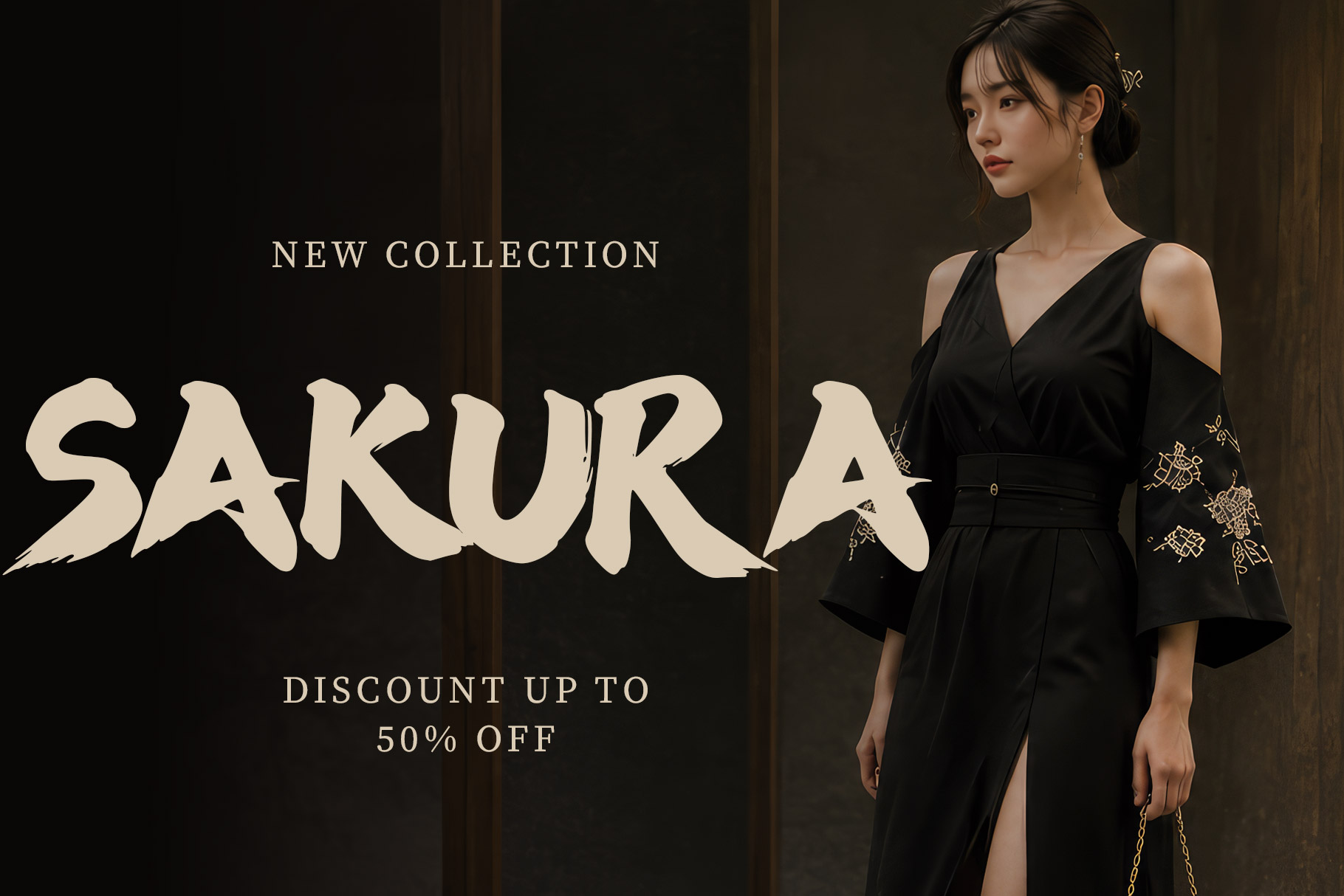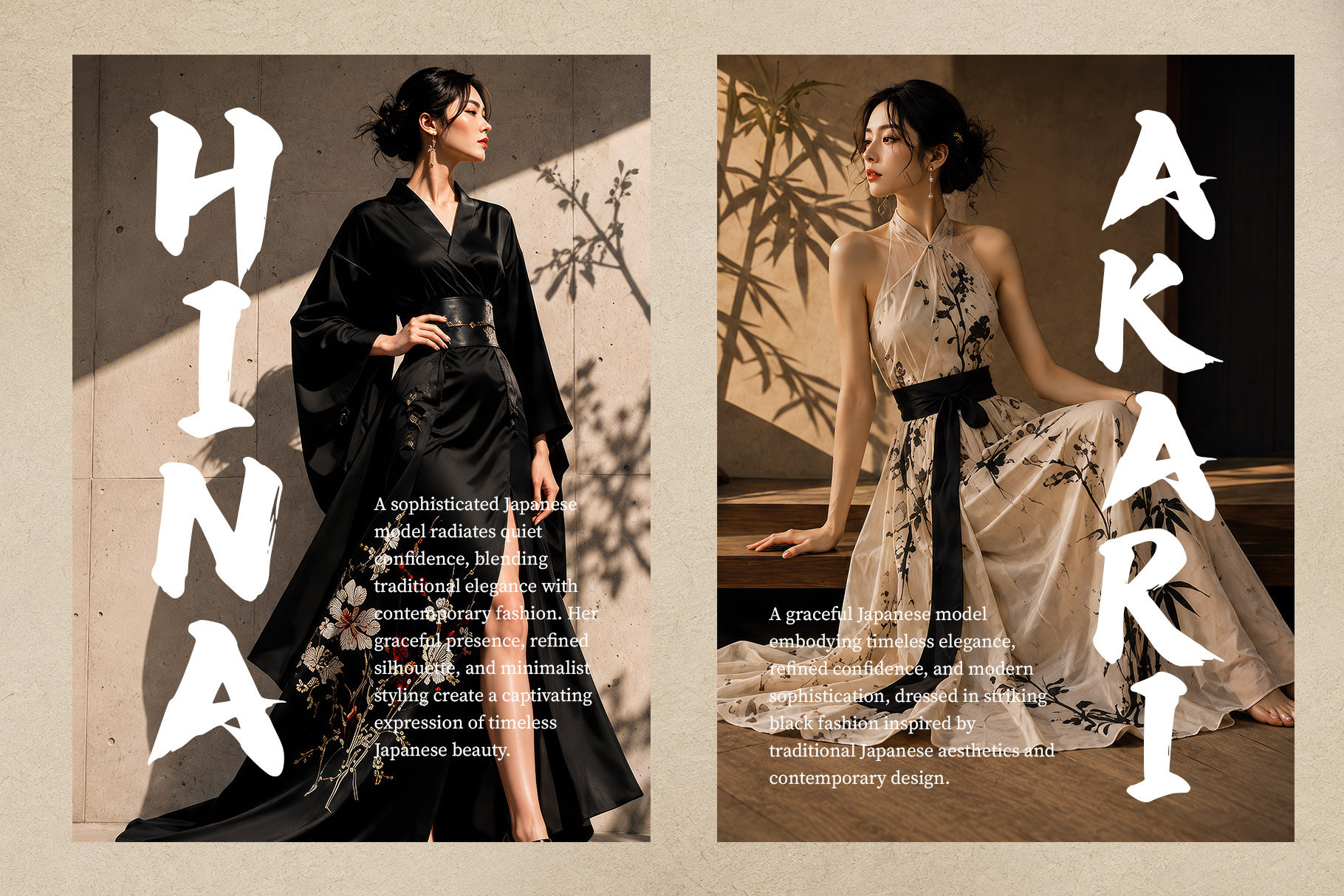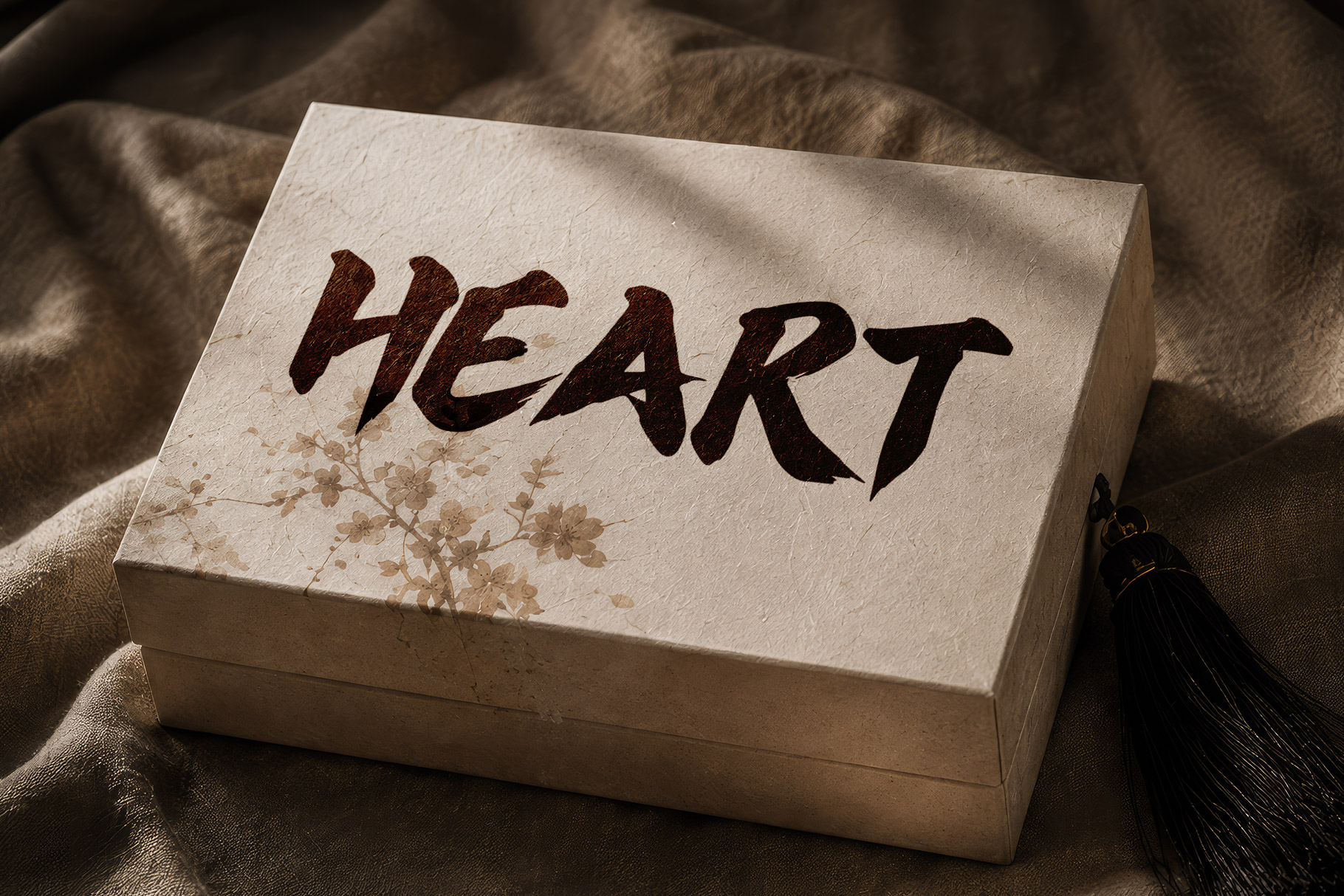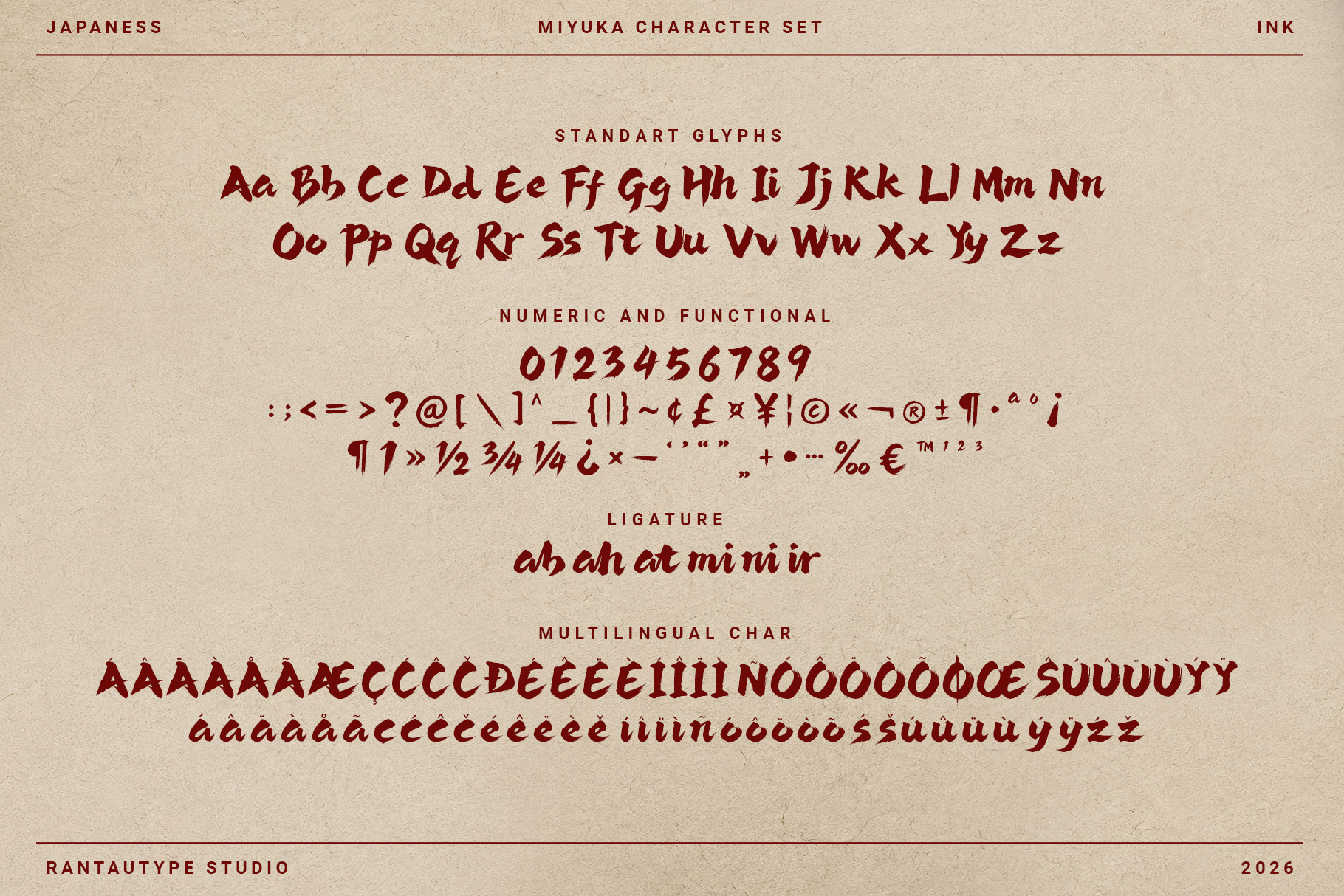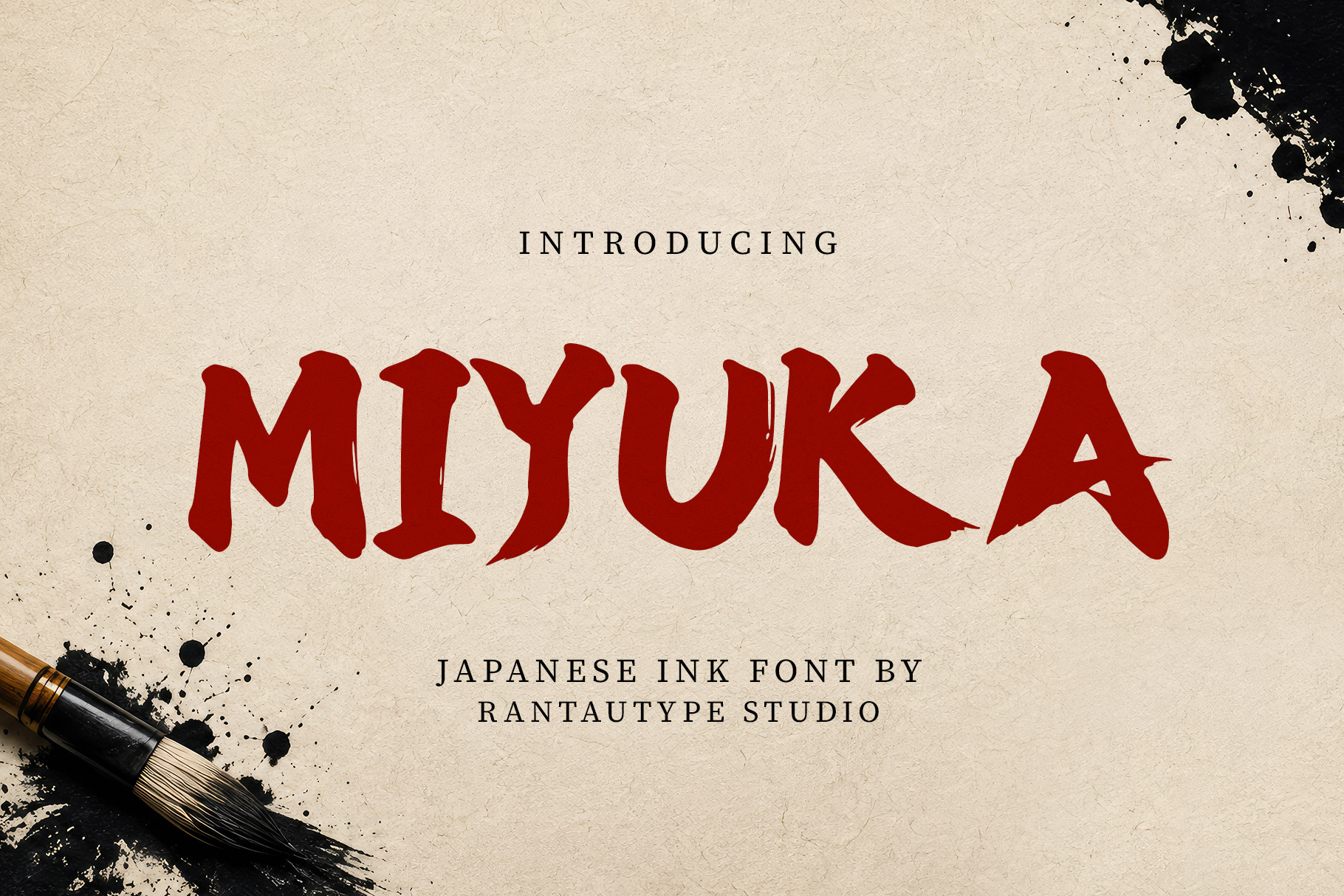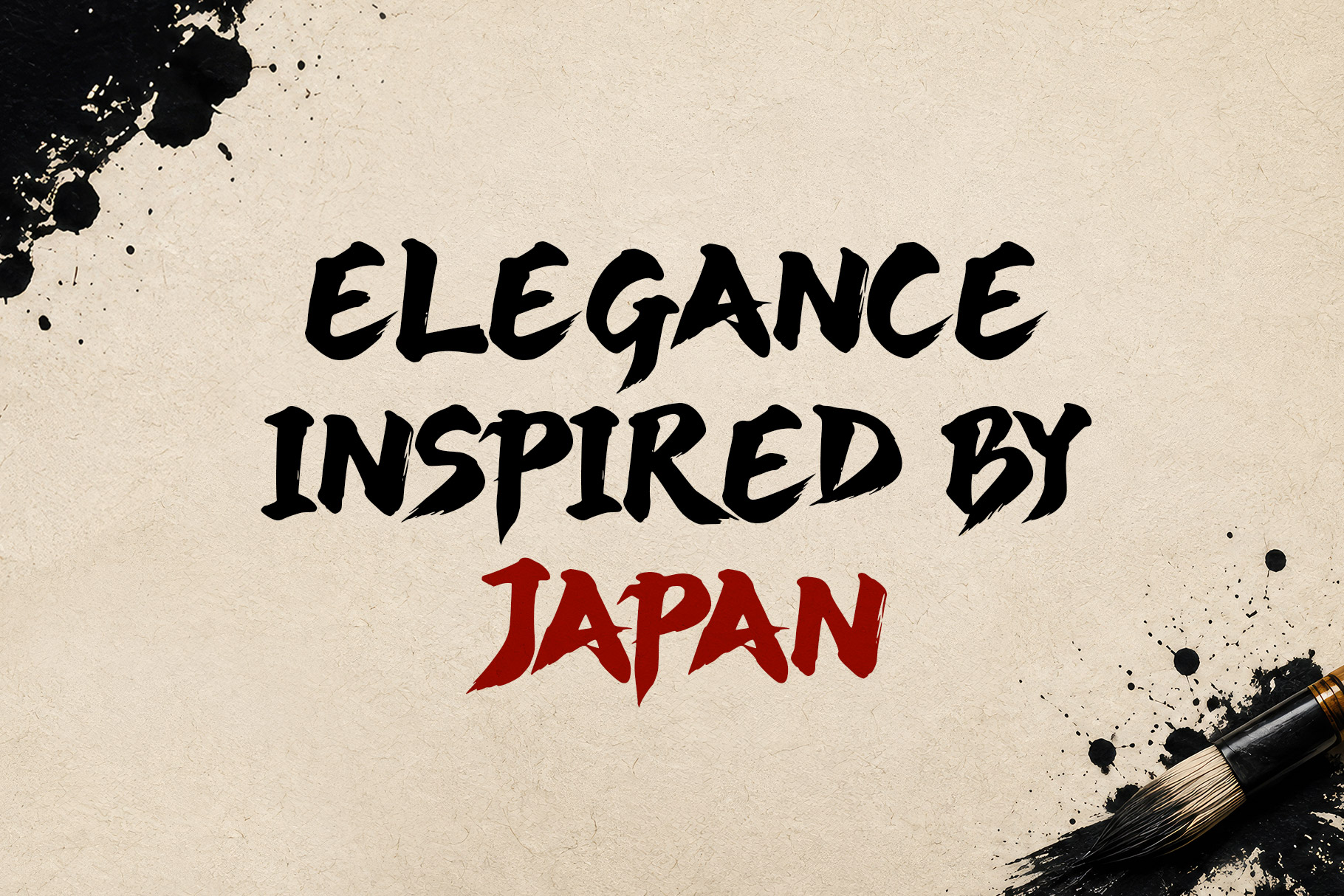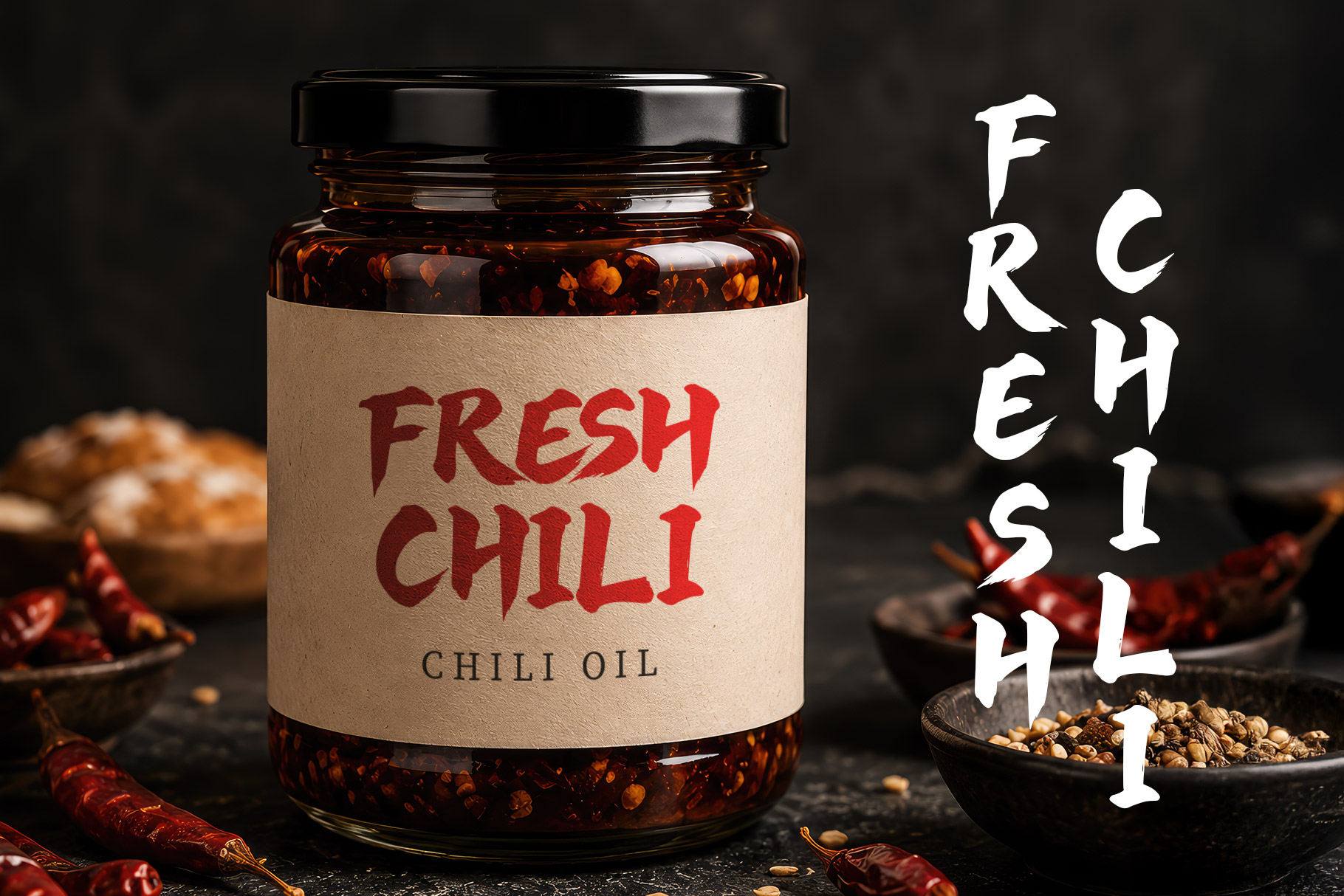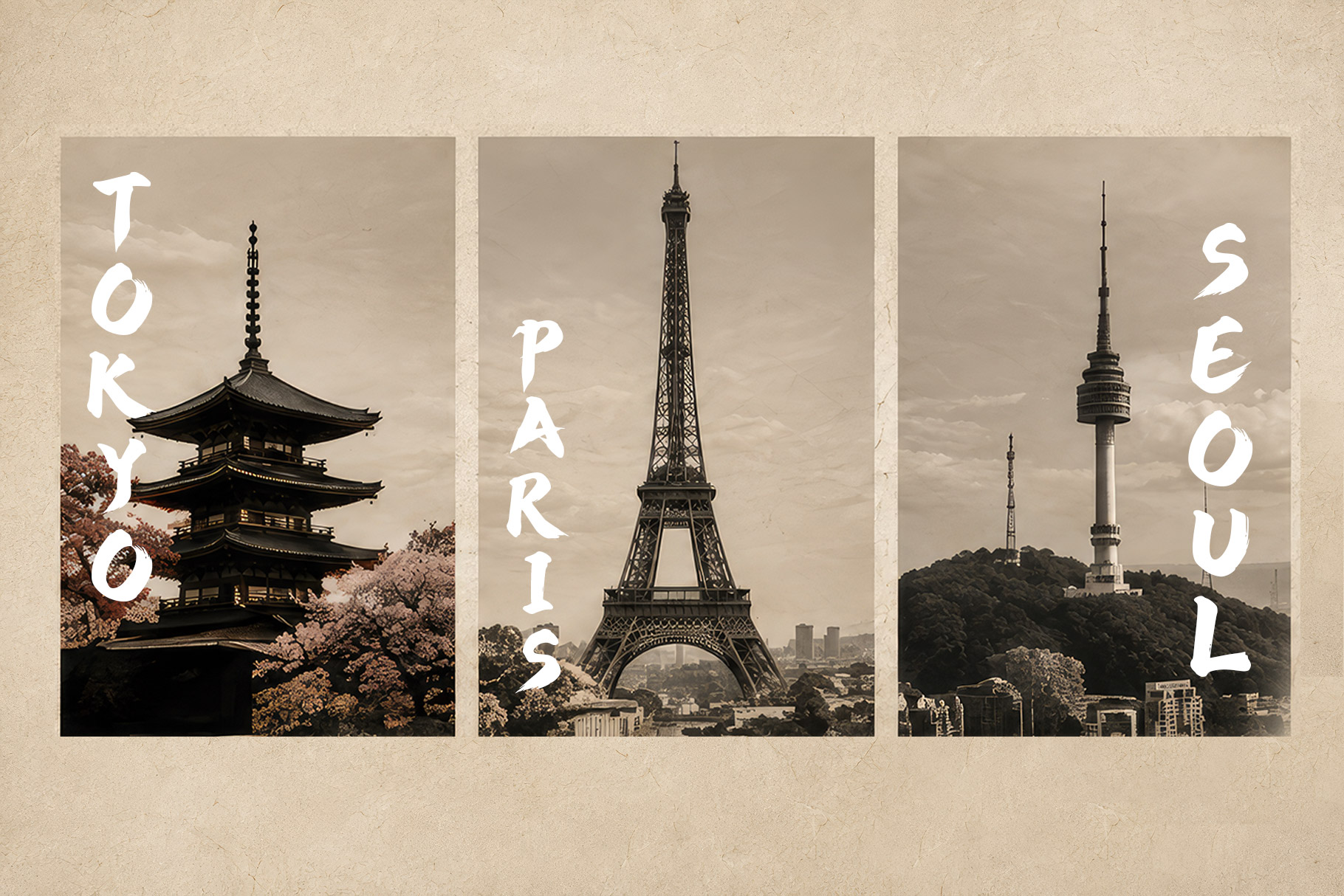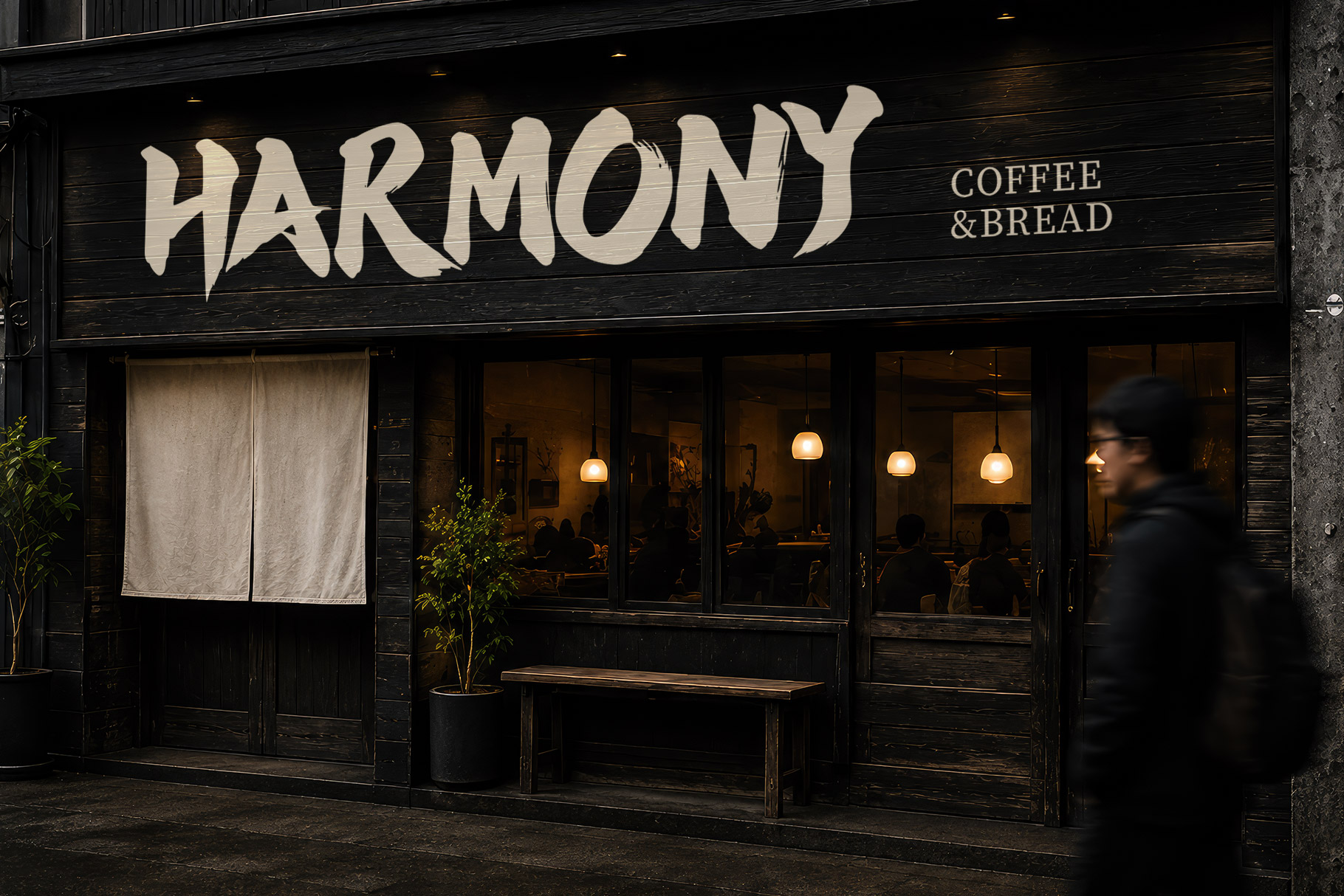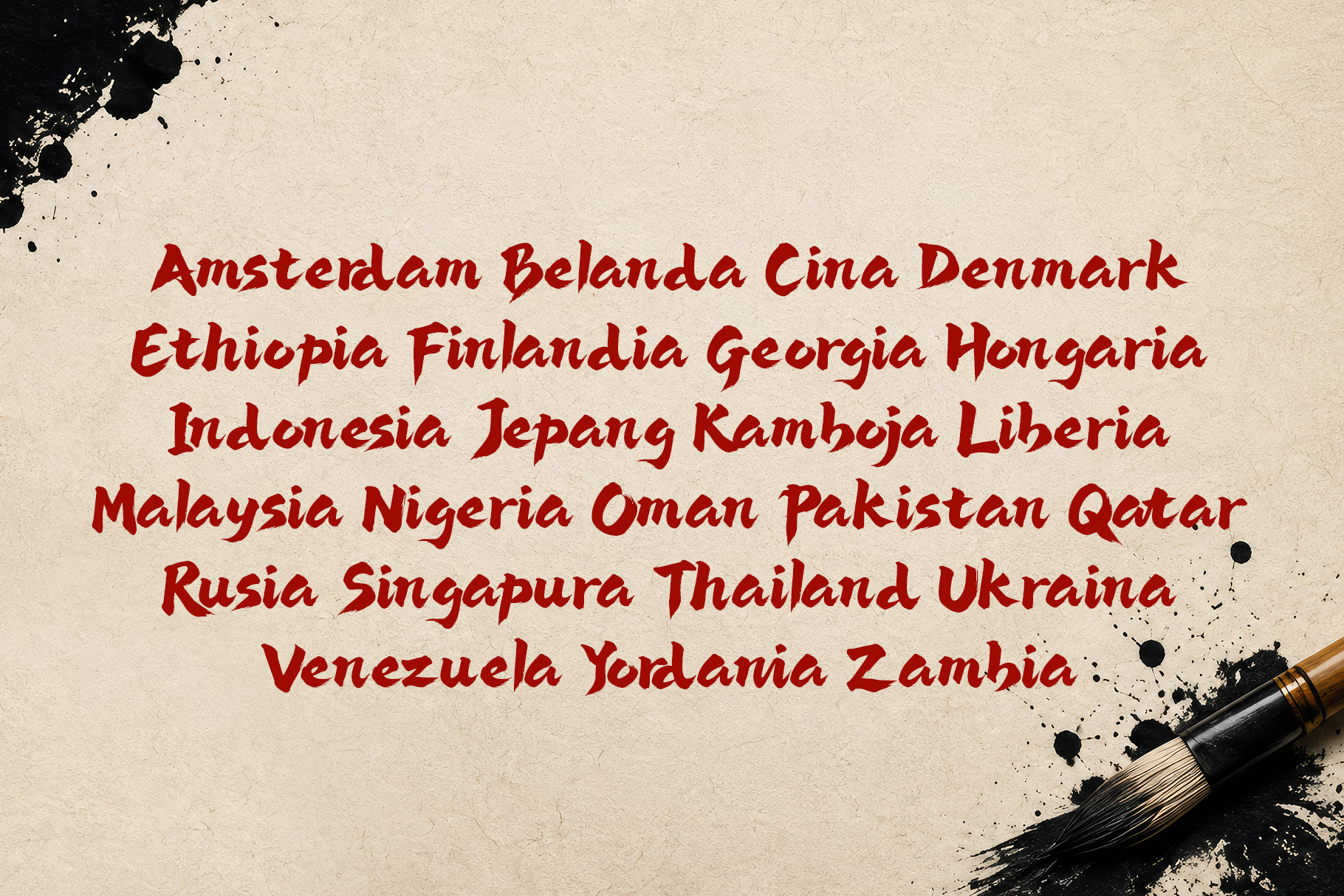
Miyuka is inspired ink japanese font captures the raw energy of traditional hand-painted brush lettering while giving it a bold, contemporary attitude. Each character feels individually crafted, with irregular contours, expressive stroke pressure, and naturally imperfect edges that create an authentic handmade appearance.
Miyuka Japanese Ink Font